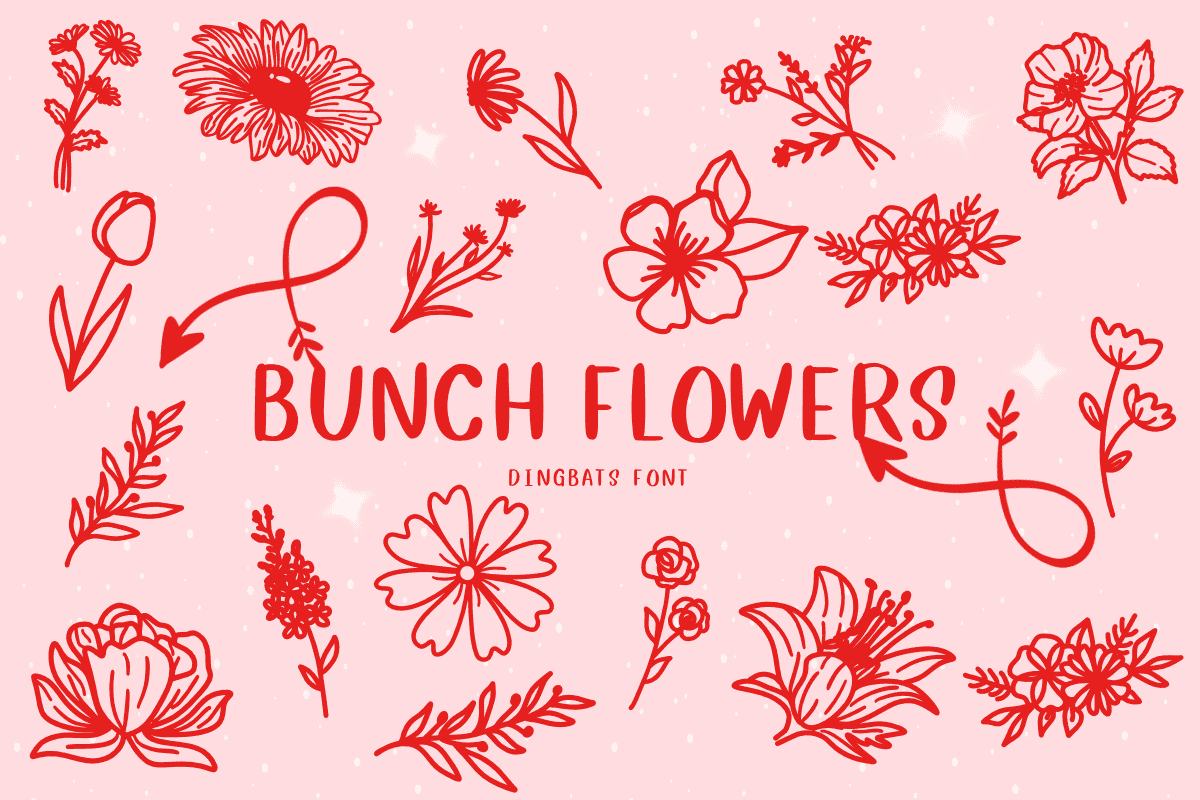
Bunch Flowers Font: ๐ Check out Bunch Flowers Font now! Explore this ๐ dingbats fonts and claim your ๐ free download here. Let's start crafting together! ๐ Bunch Flowersis a dingbats font with theme with a sketch style. This font can enhance your...